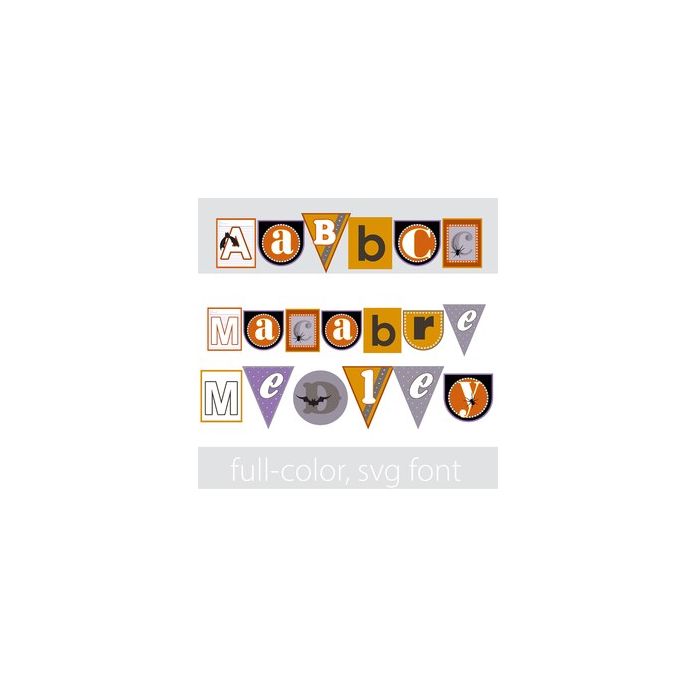
This full-color font features a Halloween color palette on pennants with bats and spiders. There is an alt case w/ additional colors you can access through your system or Silhouette's glyph map.